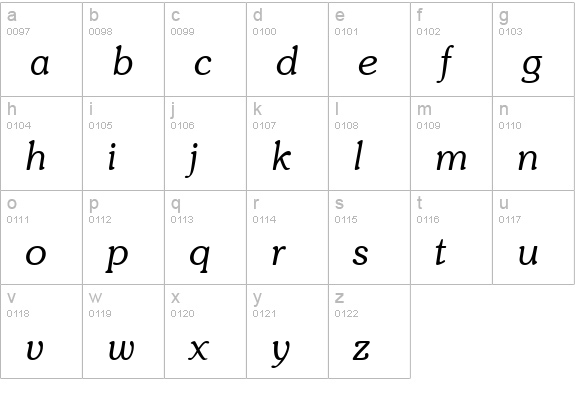
Souvenir Light Italic BT is a refined, elegant, italic variant in the Souvenir typeface family \xE2\x80\x94 well suited to elegant body text, refined sub-headings, and luxury branding.
Souvenir Light Italic BT font is a beautifully crafted typeface that exudes elegance and sophistication. Its delicate and graceful curves make it perfect for adding a touch of sophistication to any design project. The italicized form of Souvenir Light BT adds a sense of movement and style, making it ideal for creating eye-catching headings and titles. This font is not only aesthetically pleasing but also highly versatile. Its clean and legible design makes it suitable for a wide range of applications, from branding and advertising to editorial design and website typography. Whether you're designing a logo, a magazine layout, or a website, Souvenir Light Italic BT font will bring a touch of class to your project. One of the best things about Souvenir Light Italic BT font is that it is available for free download at FontsMarket.com. This means that you can get your hands on this stunning font without breaking the bank. Simply head over to FontsMarket.com and start adding this beautiful typeface to your collection. Don't miss out on the opportunity to enhance your designs with the elegance and versatility of Souvenir Light Italic BT font. Download it for free at FontsMarket.com and elevate your design projects to new heights.